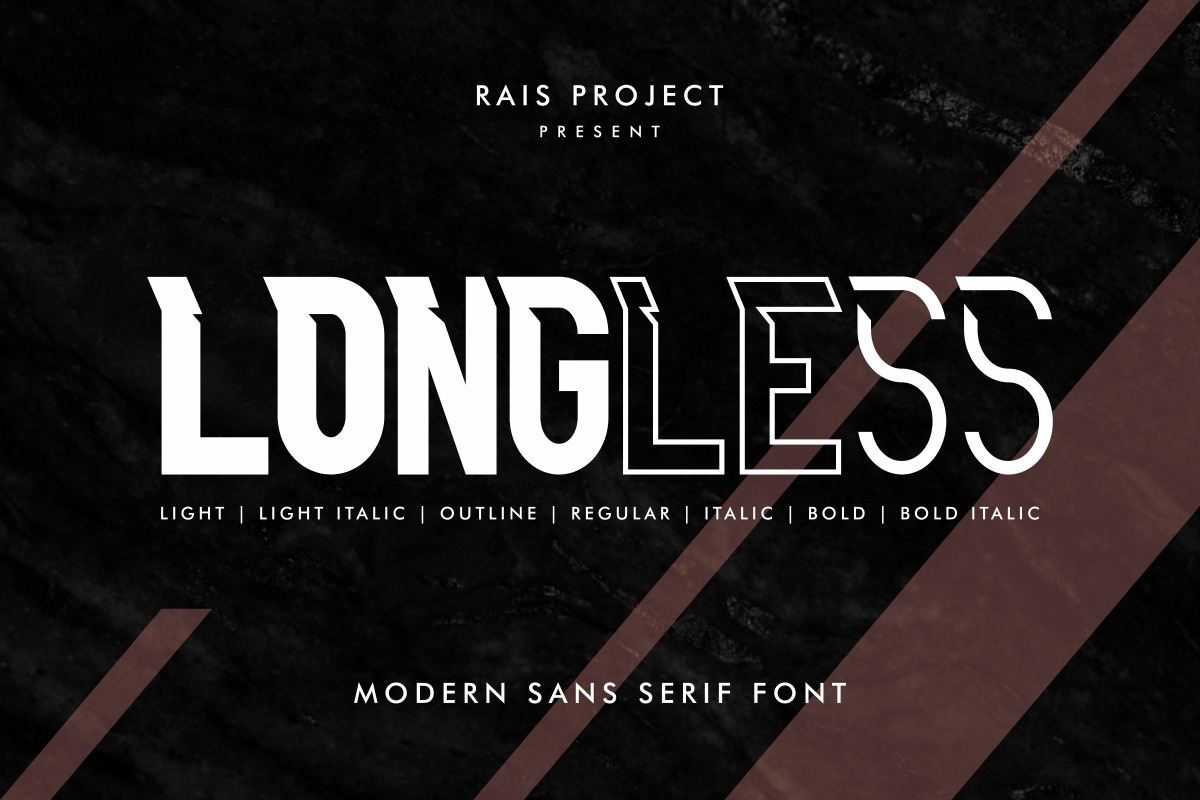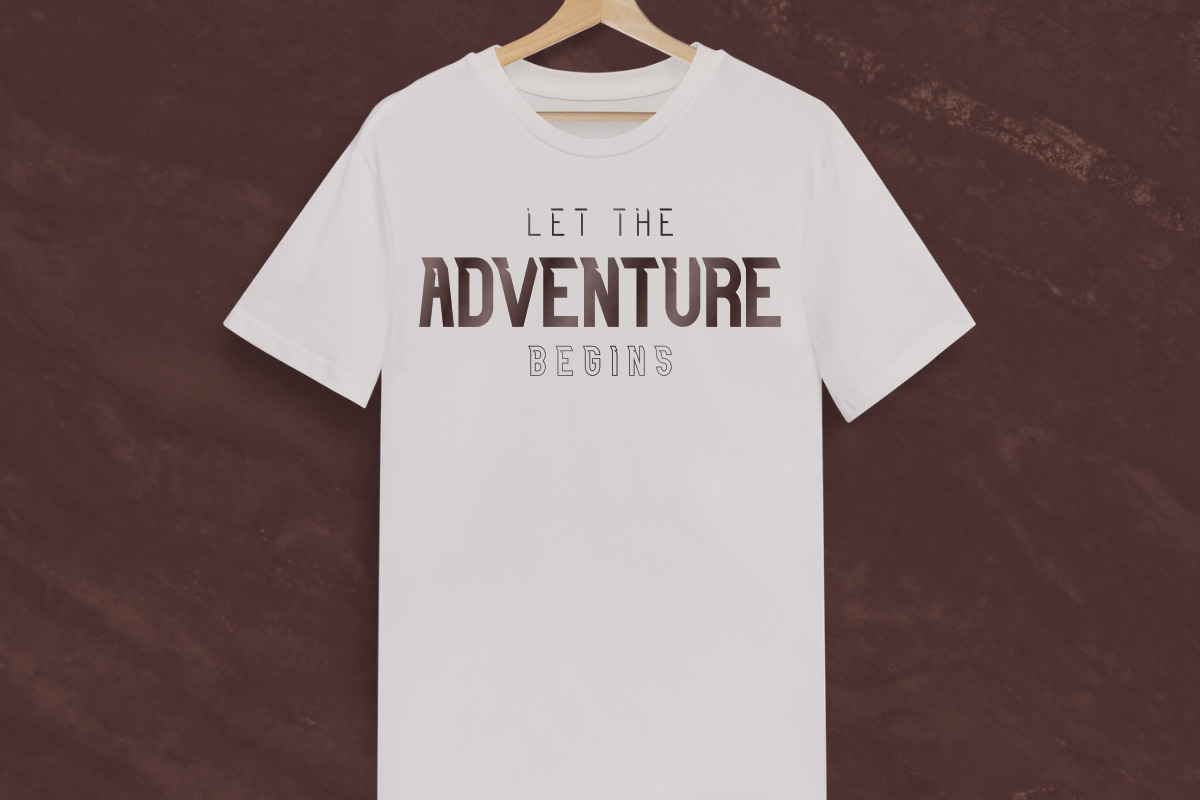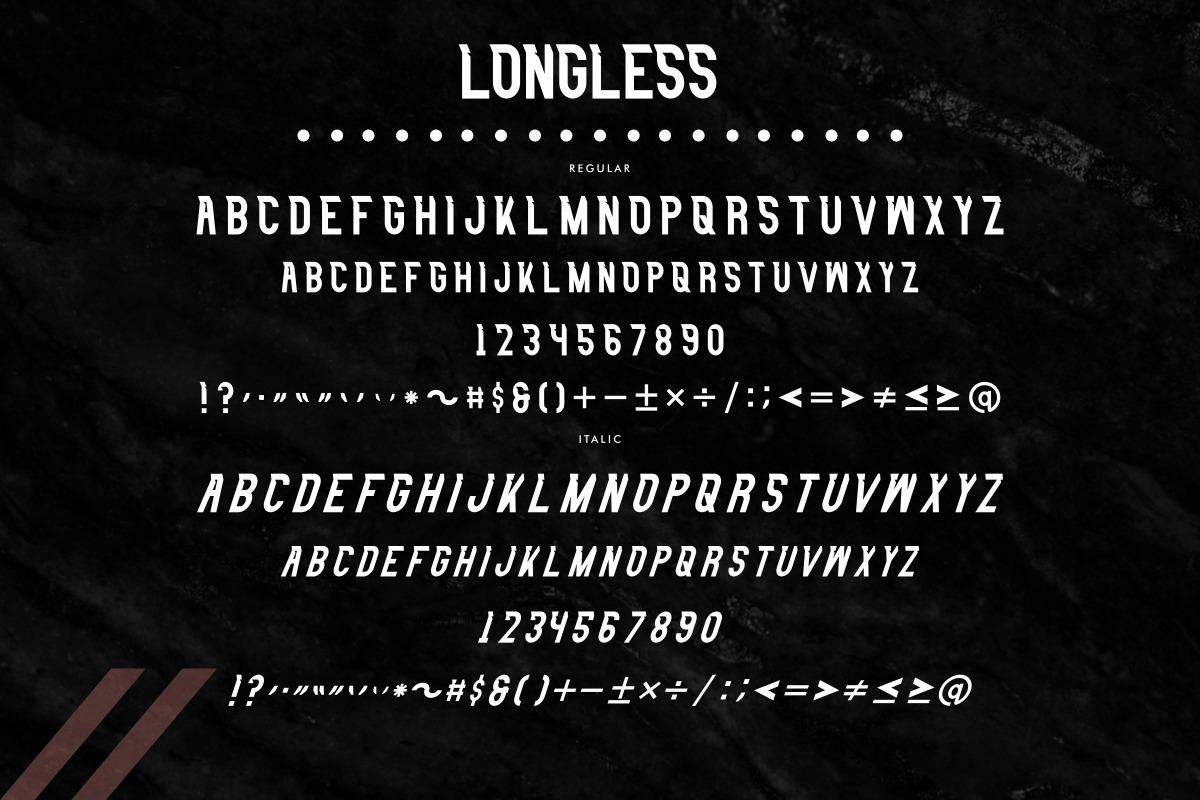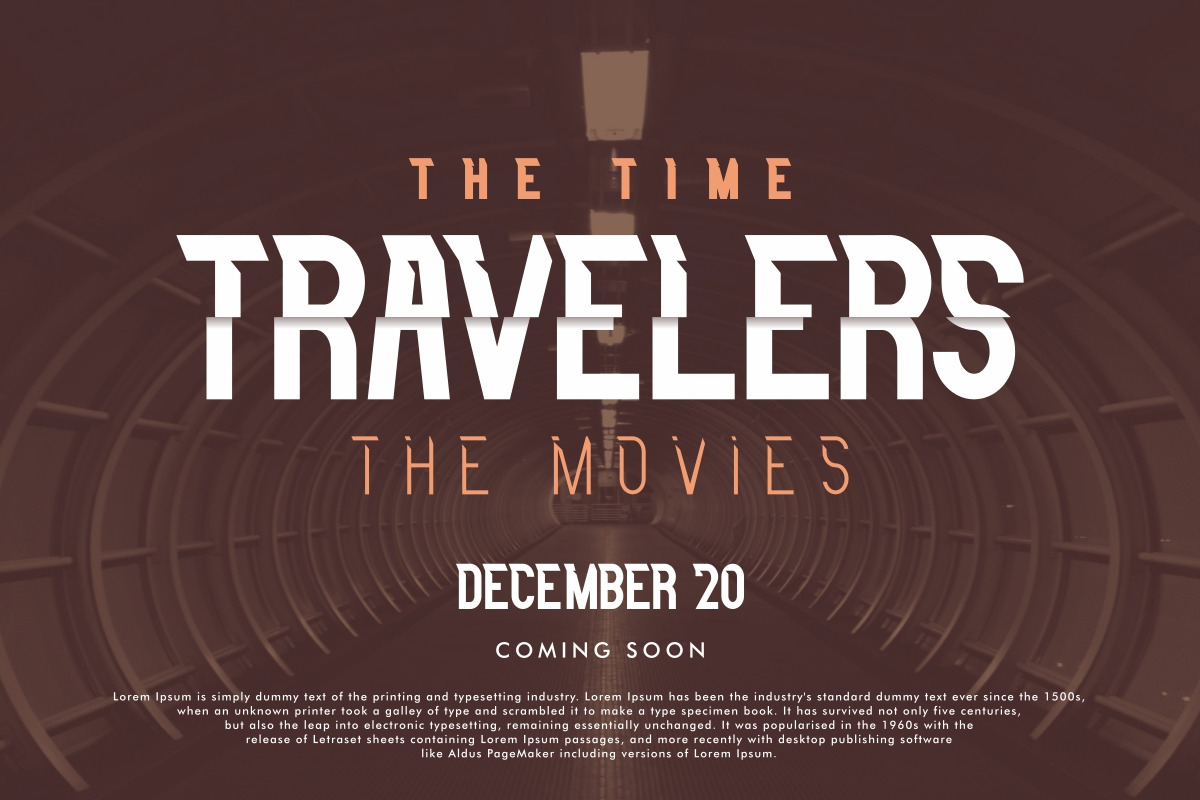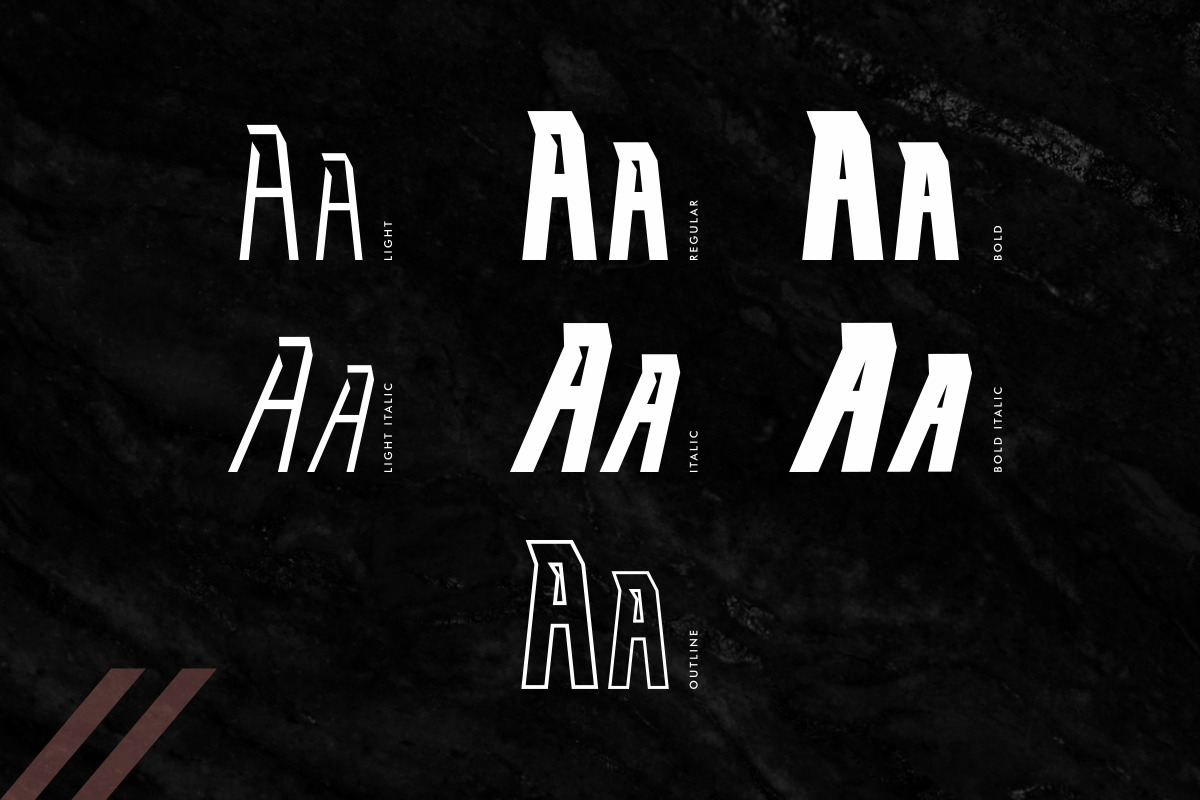
Longless Font
Longless Font is a modern futuristic clean Sans Serif display font, designed by Rais Project.
This is a display font that will be awesome for sport, technology, startup, media, movie, song etc.